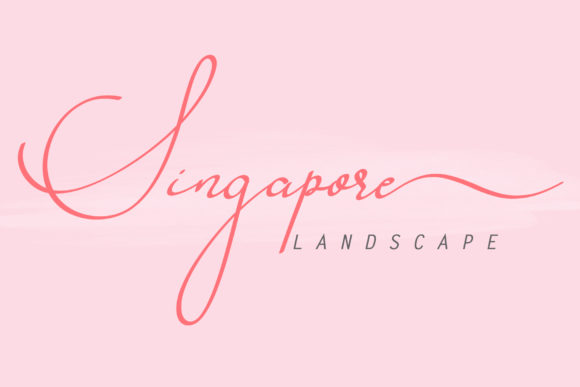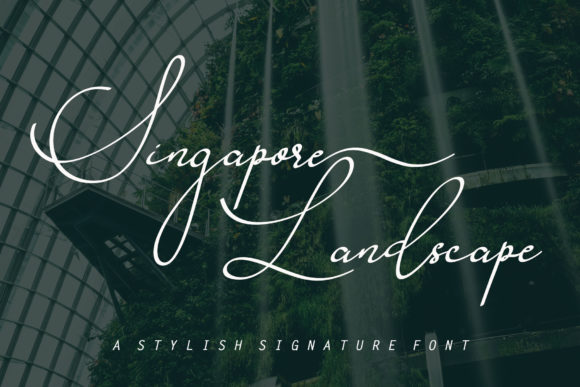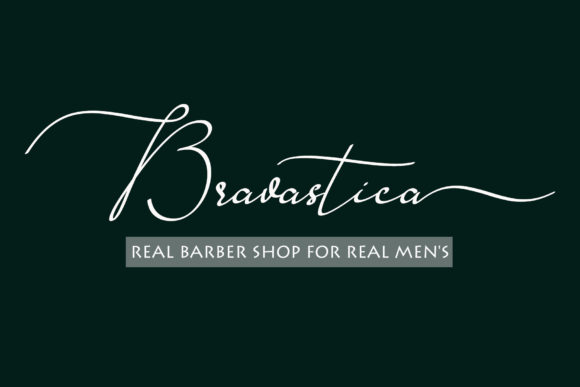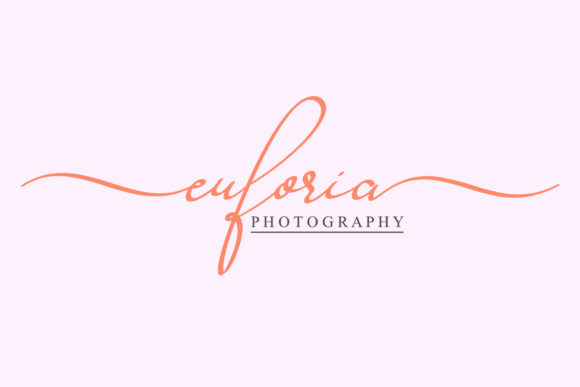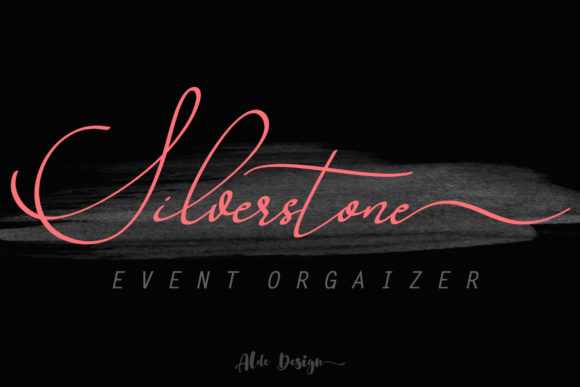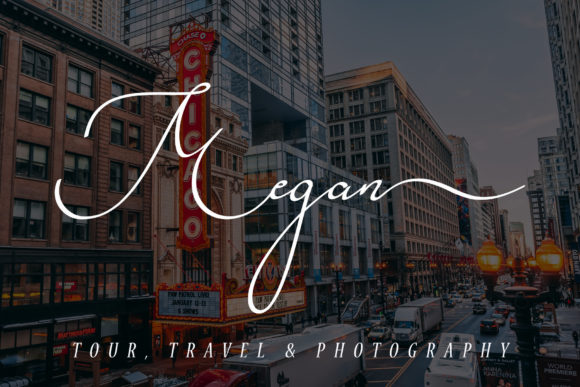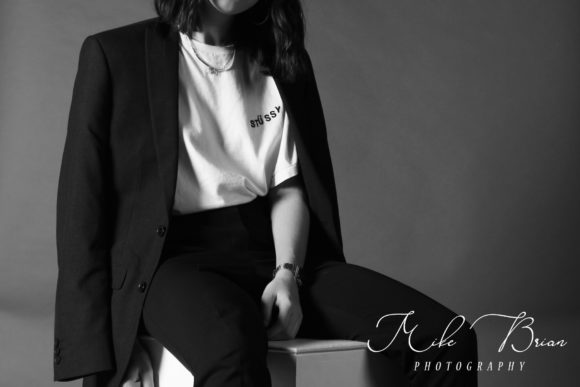
Singapore Landscape Font
About Singapore Landscape Font
The Singapore Landscape is a simple, yet classy typeface. It comes with elegant beginning and end tails, and will add a luxurious feel to your designs.
It’s perfect for signatures, logos, album covers, business cards, quotes, and much more!